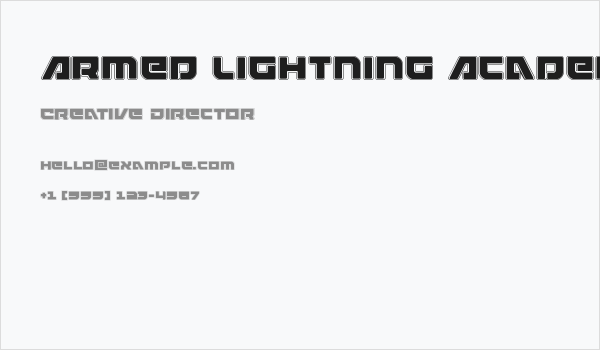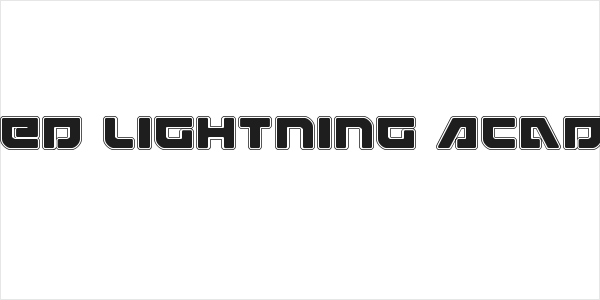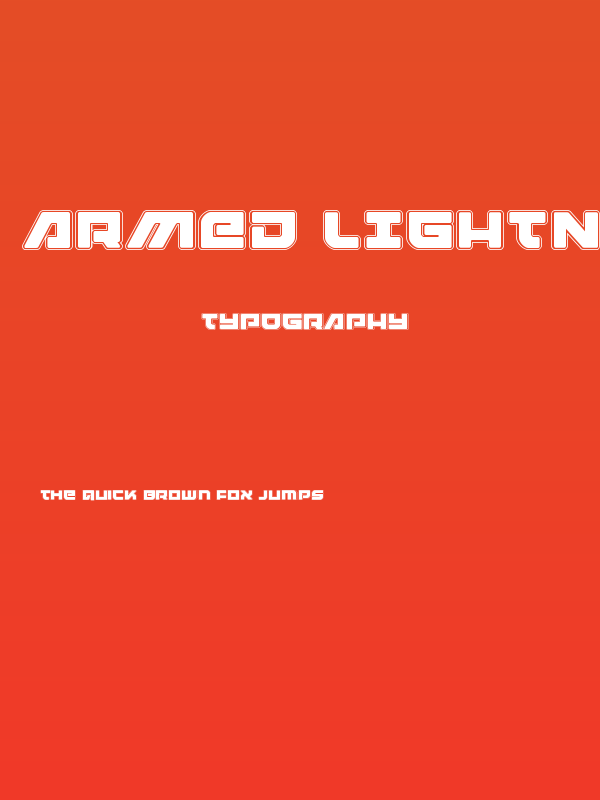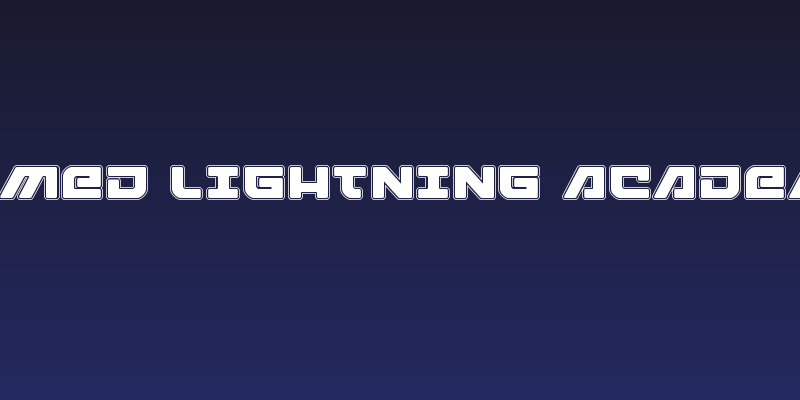
Armed Lightning Academy Font
Armed Lightning Academy Description
This font features a bold, futuristic design with a strong geometric influence. Each character is outlined, creating a striking contrast between the thick, solid lines and the inner negative space. The uppercase and lowercase letters maintain a consistent style, with angular edges and a slightly condensed form. Numbers and special characters follow the same aesthetic, ensuring uniformity across all glyphs. The font's unique style makes it ideal for projects that require a modern and edgy look.
| Proposed Projects | Ideal for sci-fi themed designs, video game titles, tech branding, and modern posters. |